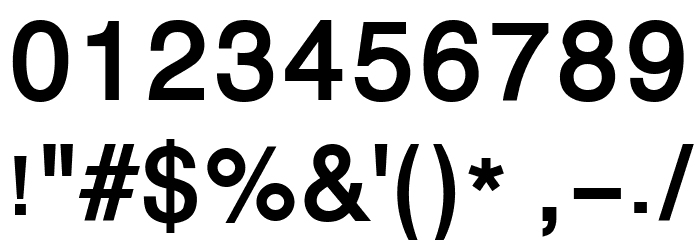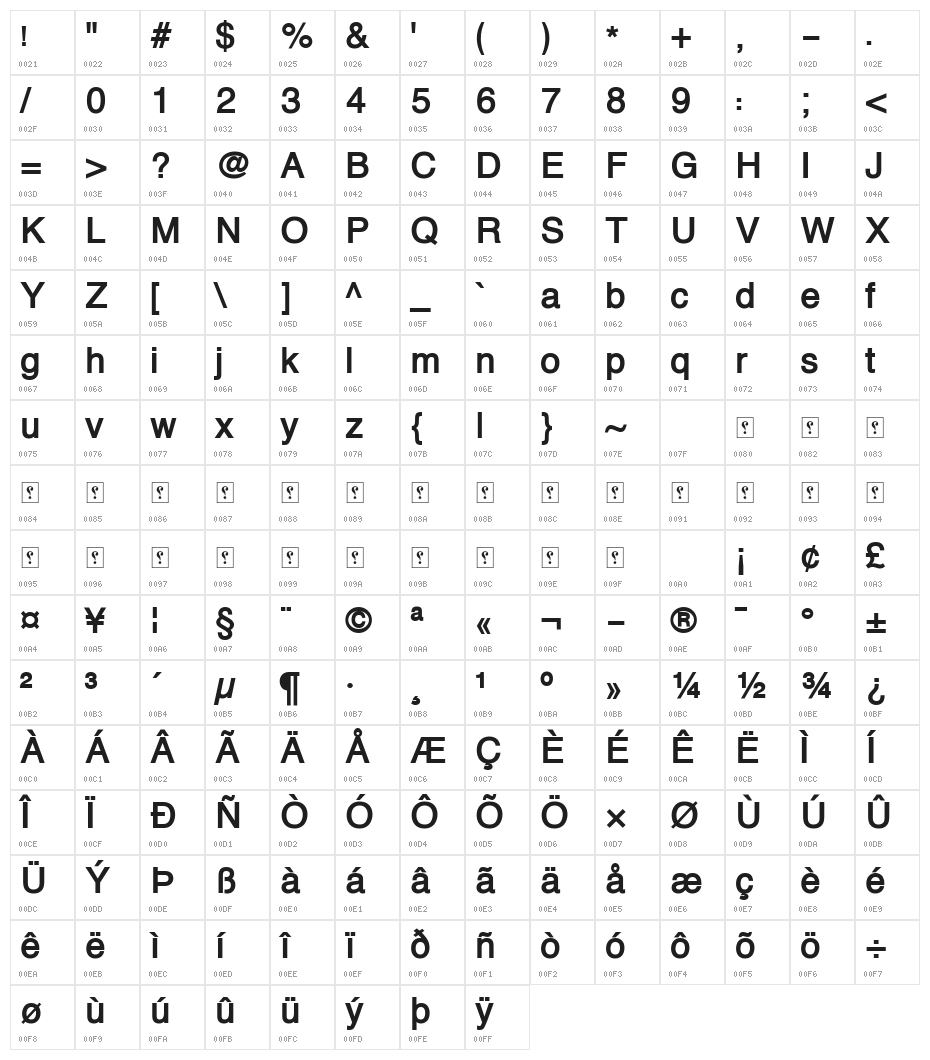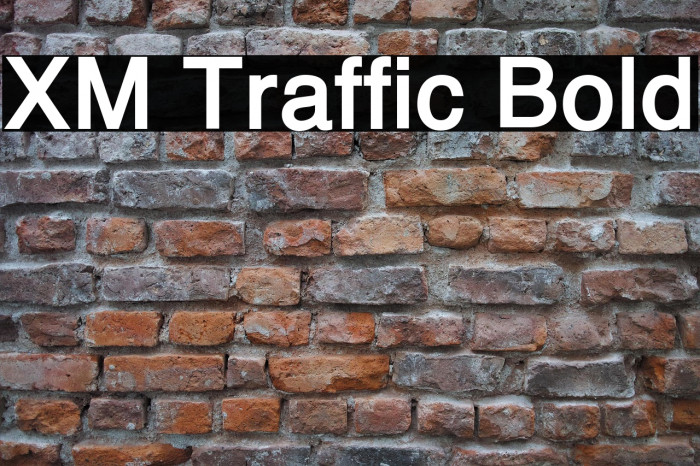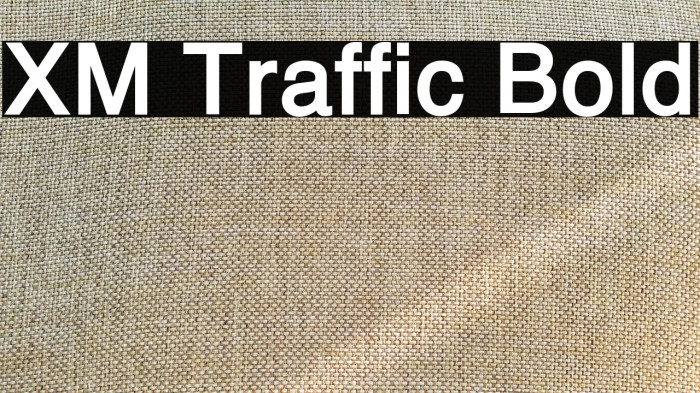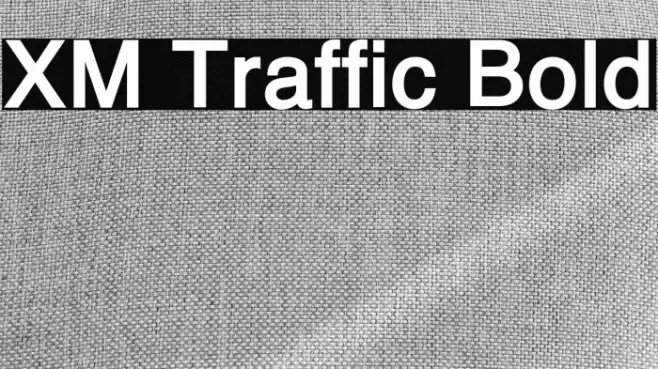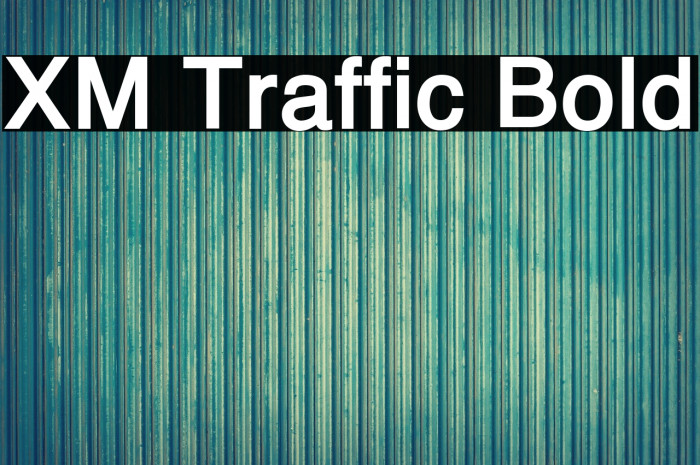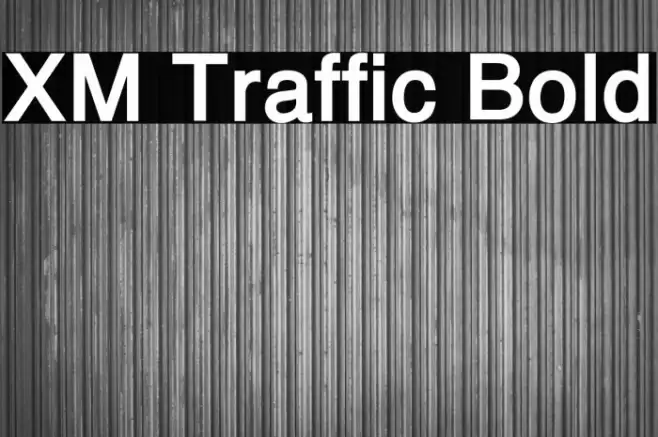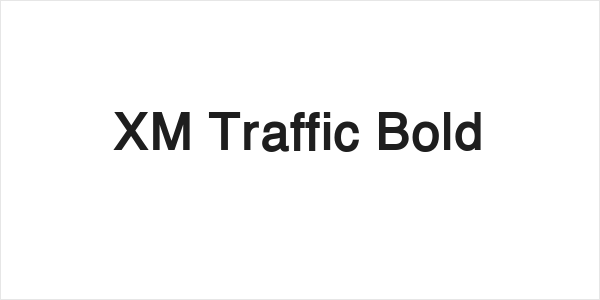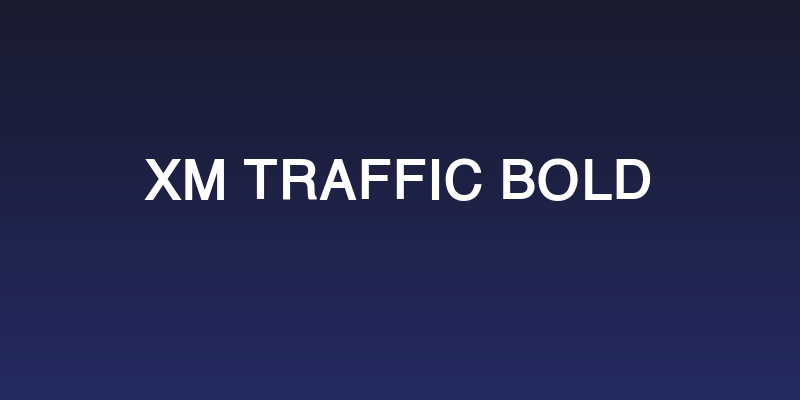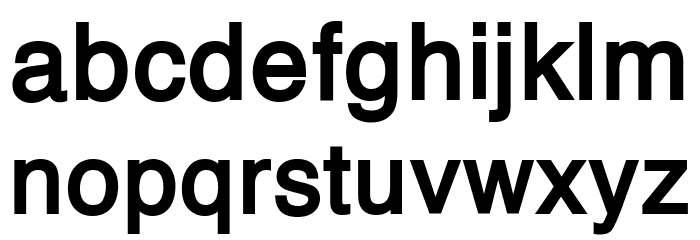
XM Traffic Bold Font
XM Traffic Bold Description
This font features a bold and clean sans-serif design, characterized by its strong, uniform strokes and modern aesthetic. The uppercase and lowercase letters are well-proportioned, offering excellent readability. The numerals are clear and distinct, making them suitable for various applications. Special characters are included, maintaining the font's cohesive style. The overall appearance is straightforward and professional, ideal for conveying information clearly and effectively.
| Use Case | Headlines, Signage, Branding |
| Proposed Projects | Ideal for signage, branding, headlines, and any project requiring clear and impactful text. |